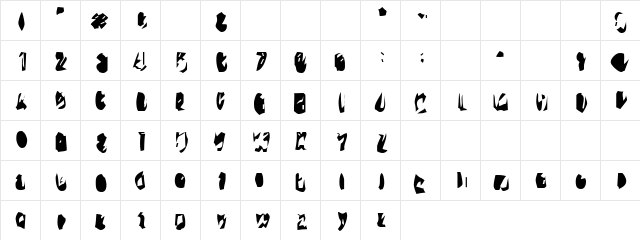
15teen Regular Font Preview
15teen Regular
15teen Regular Font Details
Design Context for 15teen Typeface
15teen is a composed and adaptable typeface that performs quietly and consistently across a wide range of design contexts.